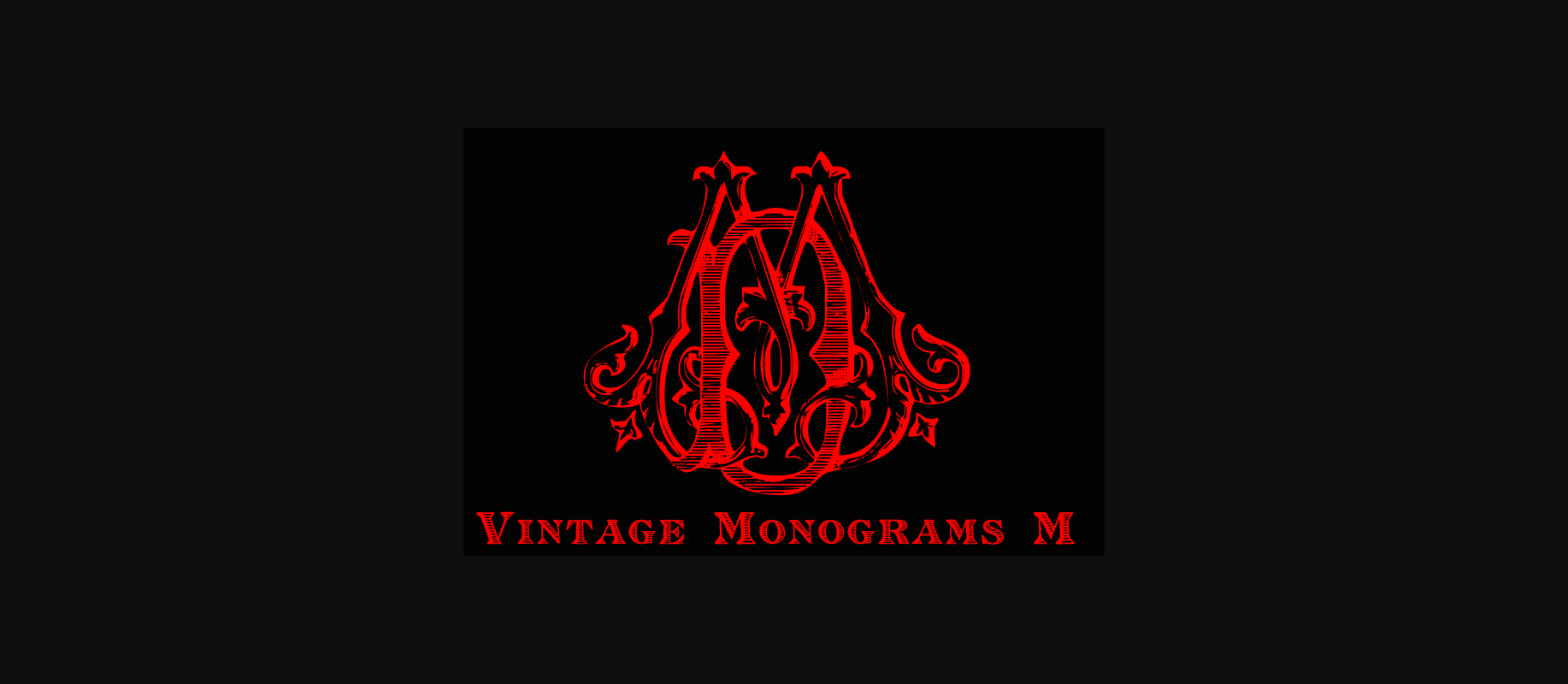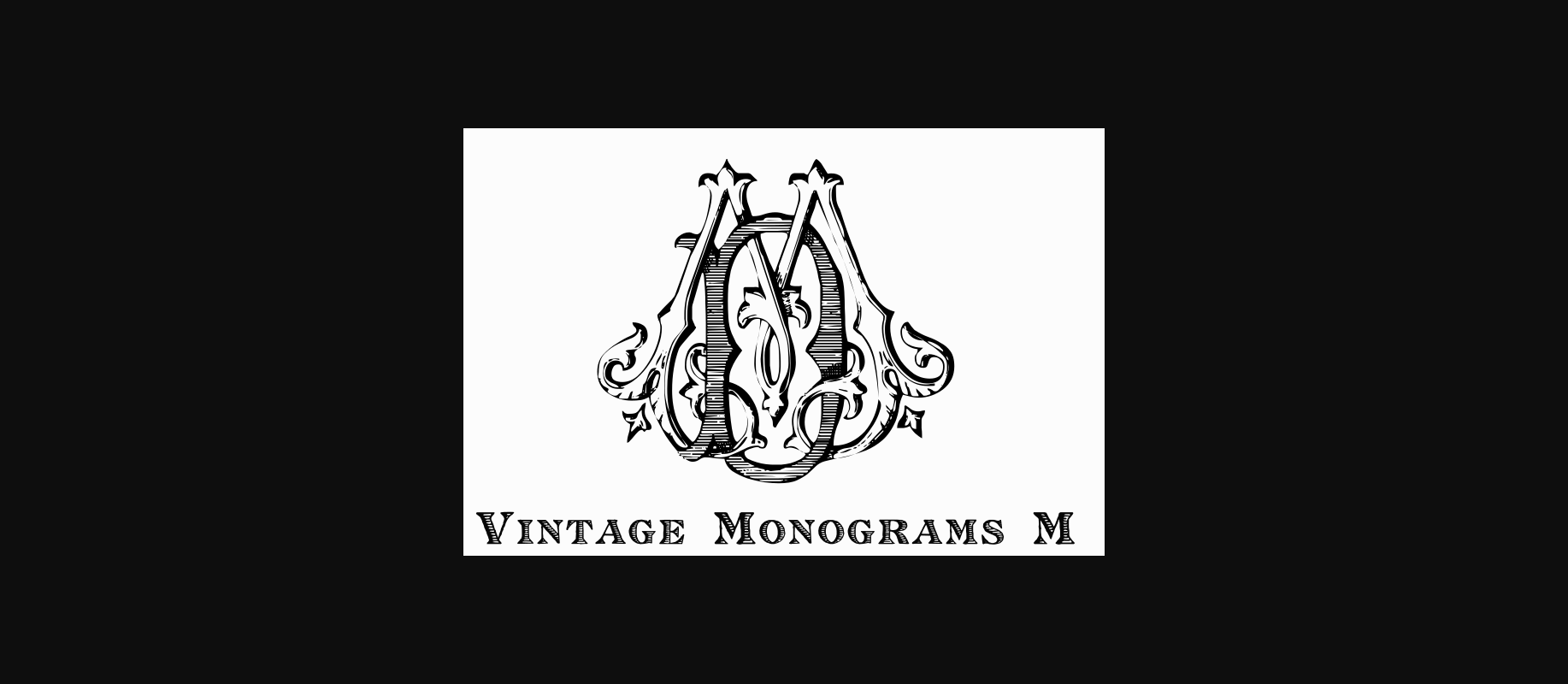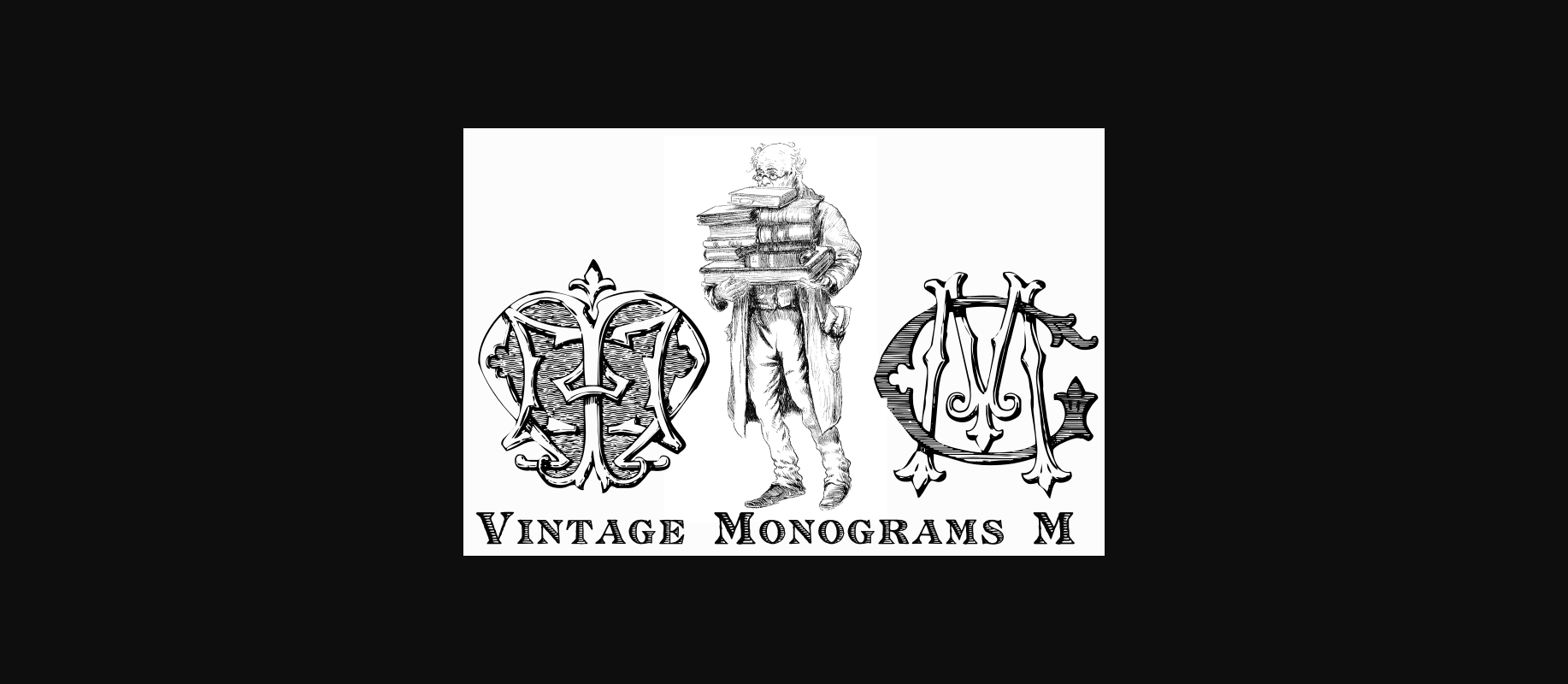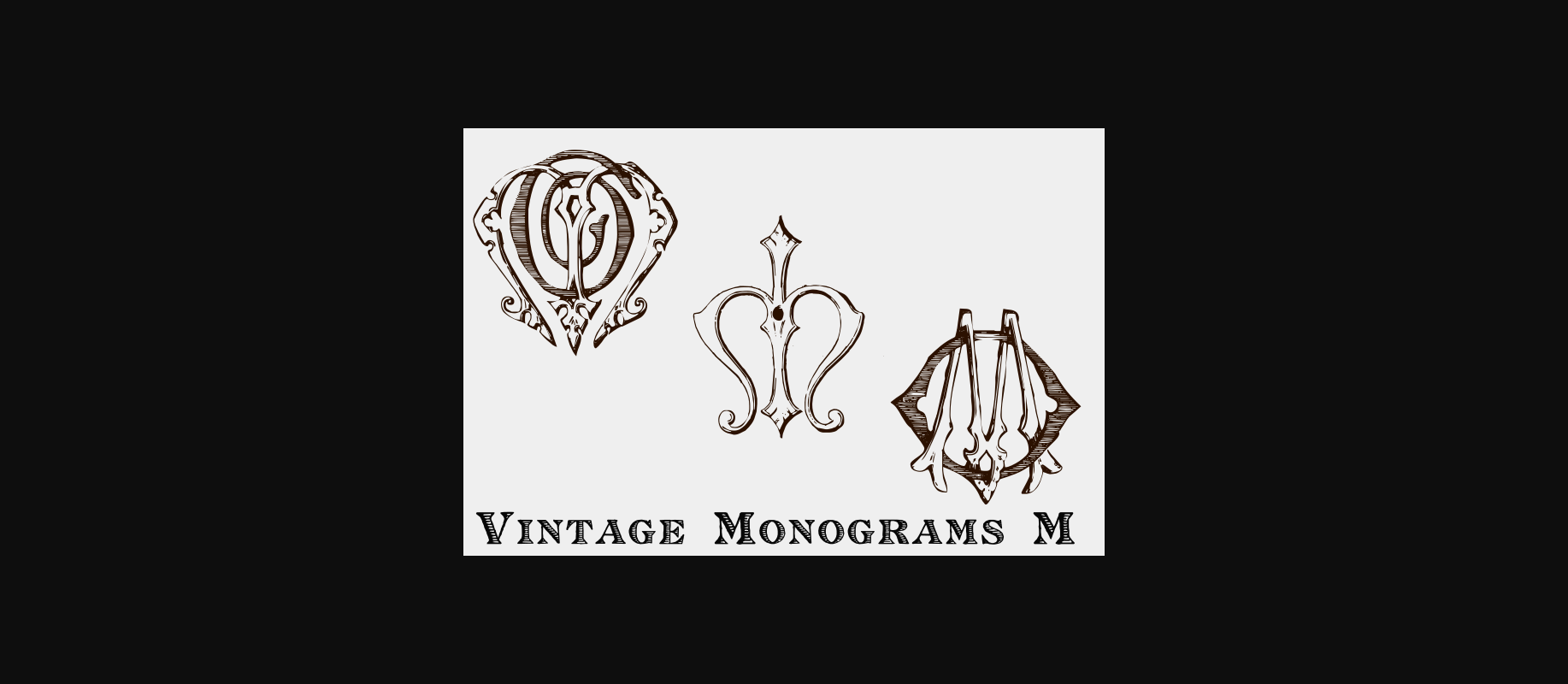
About Vintage Monograms M Font
Introducing Vintage Monograms M – a ready-to-use font featuring dozens of monograms that cleverly combine the letter M with other letters. Embracing a charming Victorian vintage style, this font adds a touch of elegance to your designs effortlessly. Perfect for personalizing your projects with a timeless flair, Vintage Monograms M makes crafting stylish and sophisticated monograms a breeze.